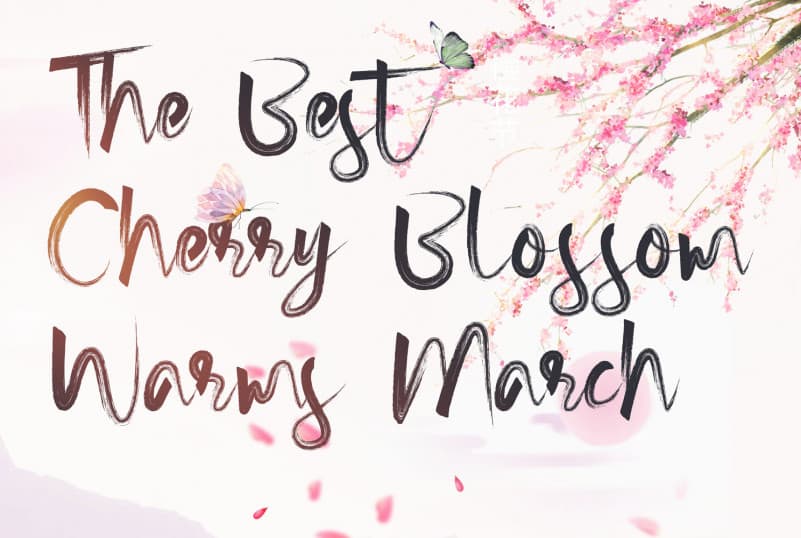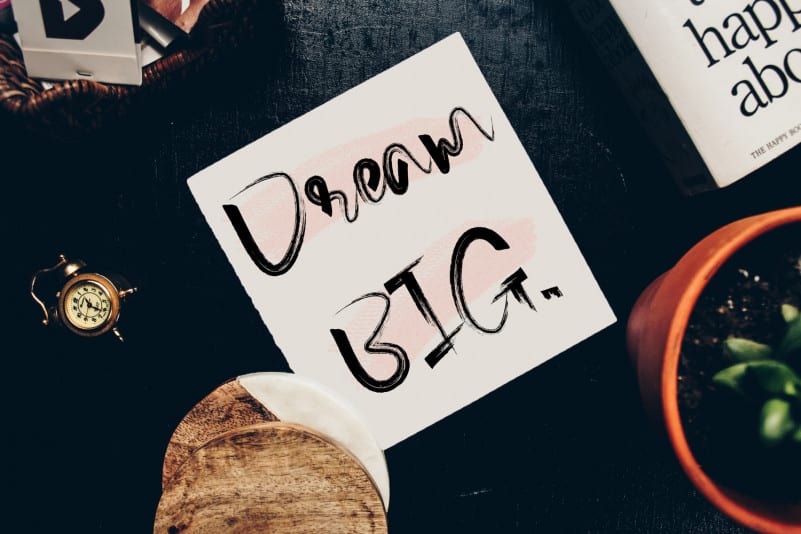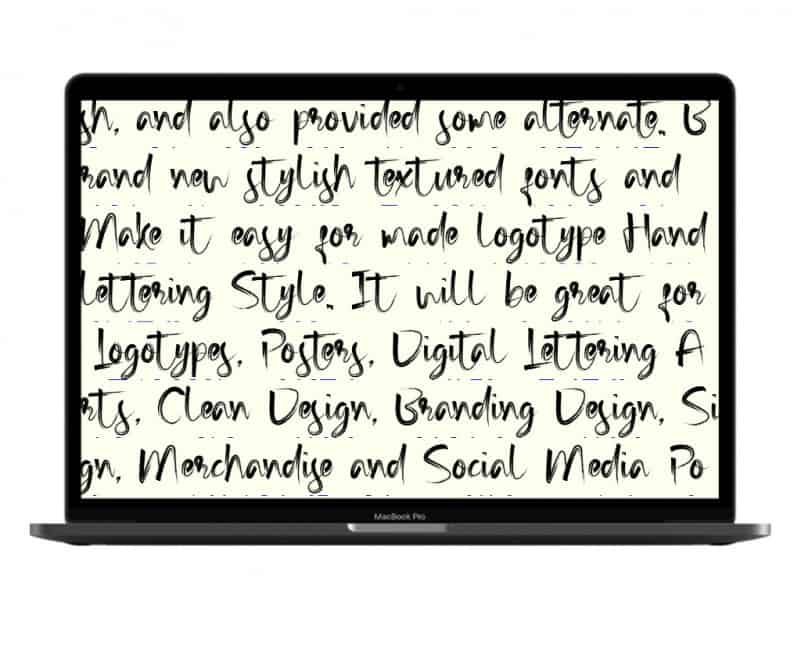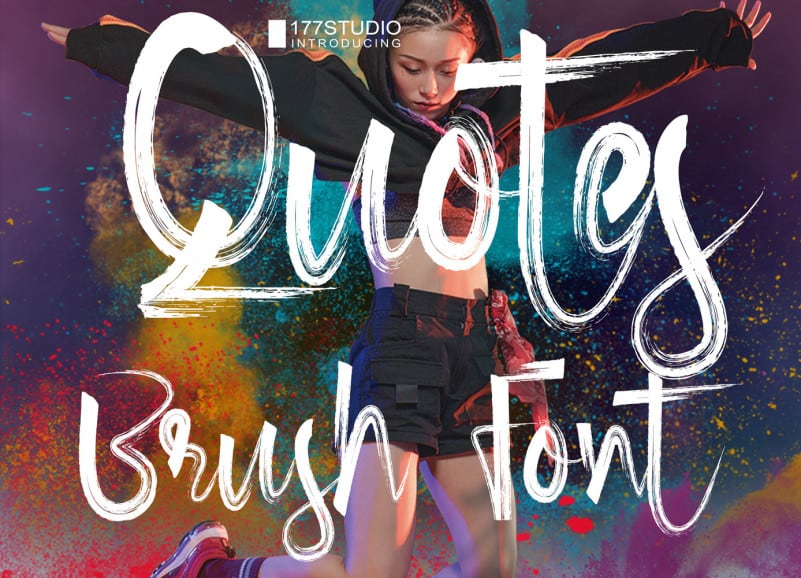
Quotes Brush Font
Introducing Quotes Brush Font. A texture brush font. Quotes Brush Font is a unique hand made brush font created using realistic brush strokes including inconsistent textures & letter-forms to give you the same look & feel as a real brush would!